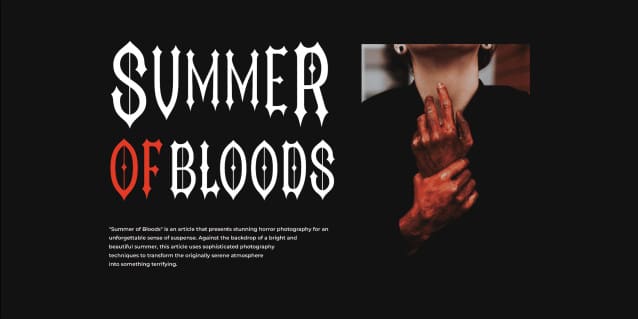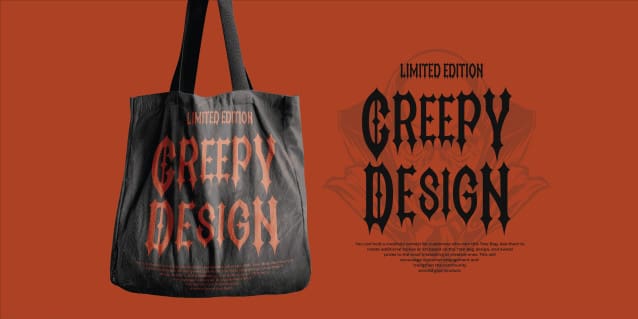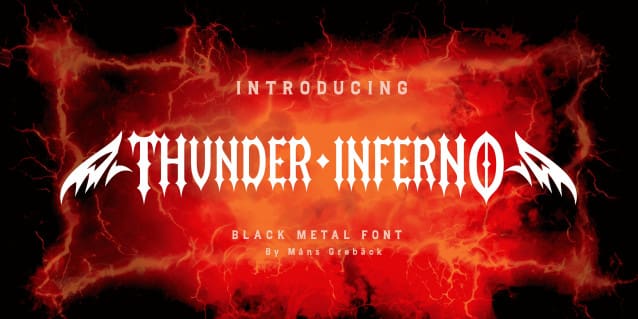
Thunder Inferno Font
Thunder Inferno Font is a gothic black metal typeface with sharp serifs, rooted in the aesthetics of heavy metal and the occult, this typeface is a harbinger of darkness and intensity.
Capitalize the first and last letters of any word for a symmetrical heavy metal style.
Example: Heavy metaL
Enclose any word in ( ) [ ] { } to give it wings.
Example: {HawkstylE}